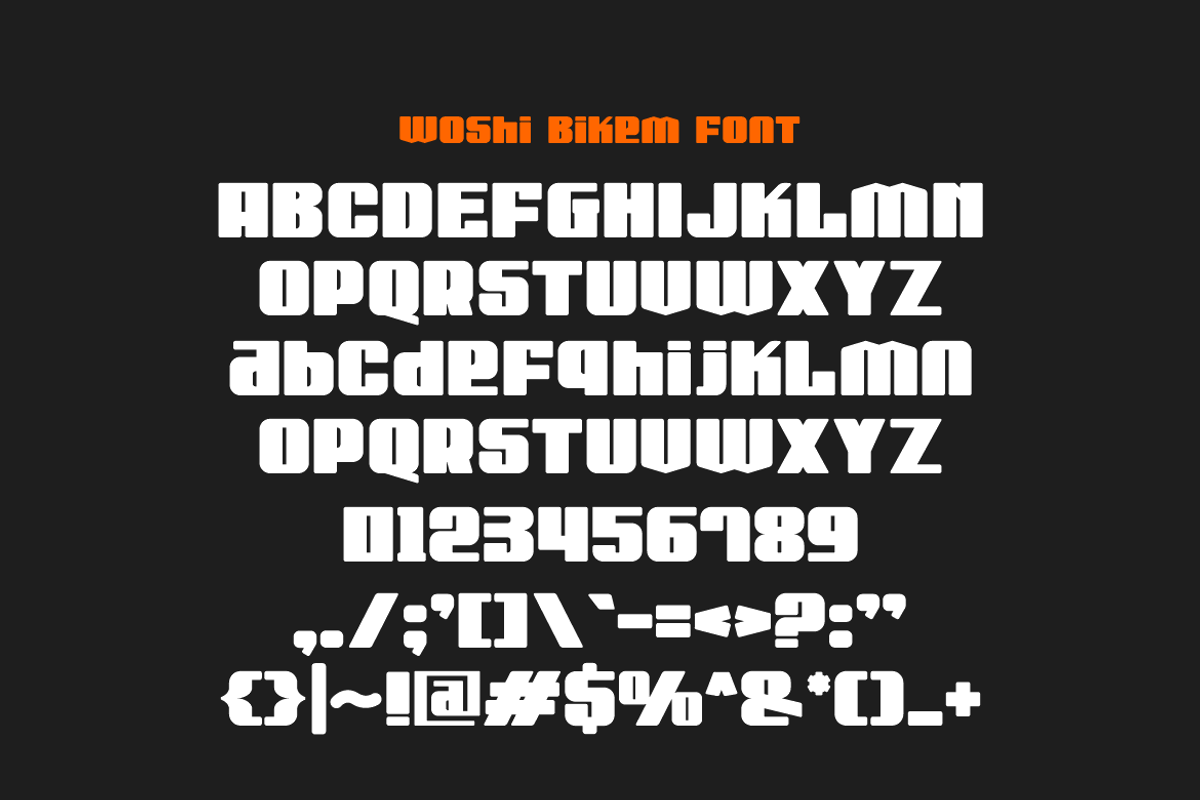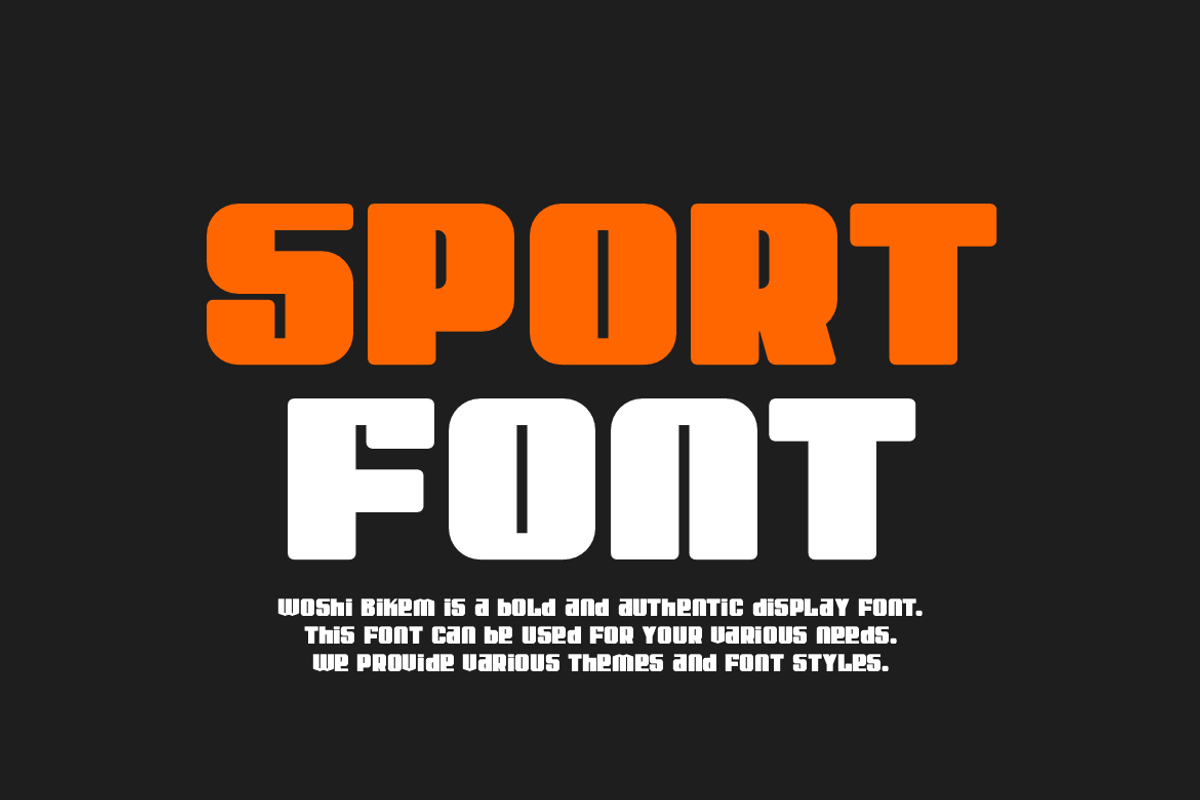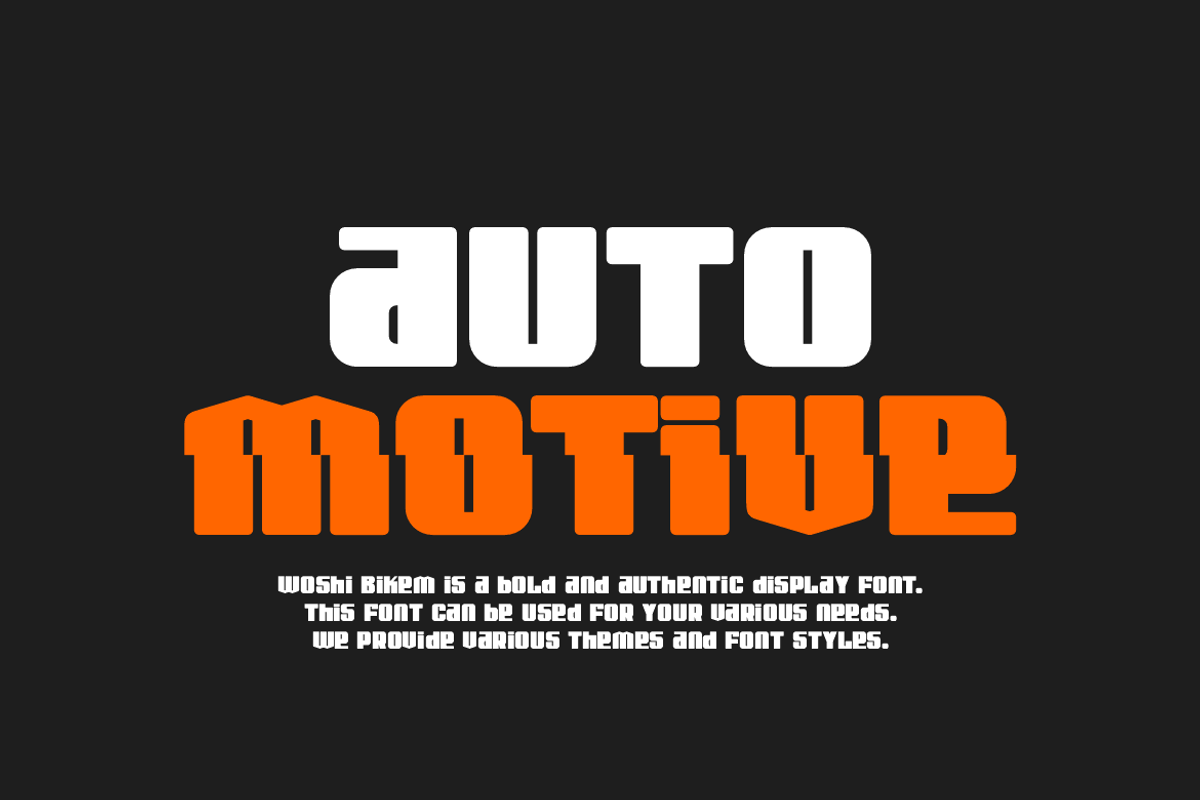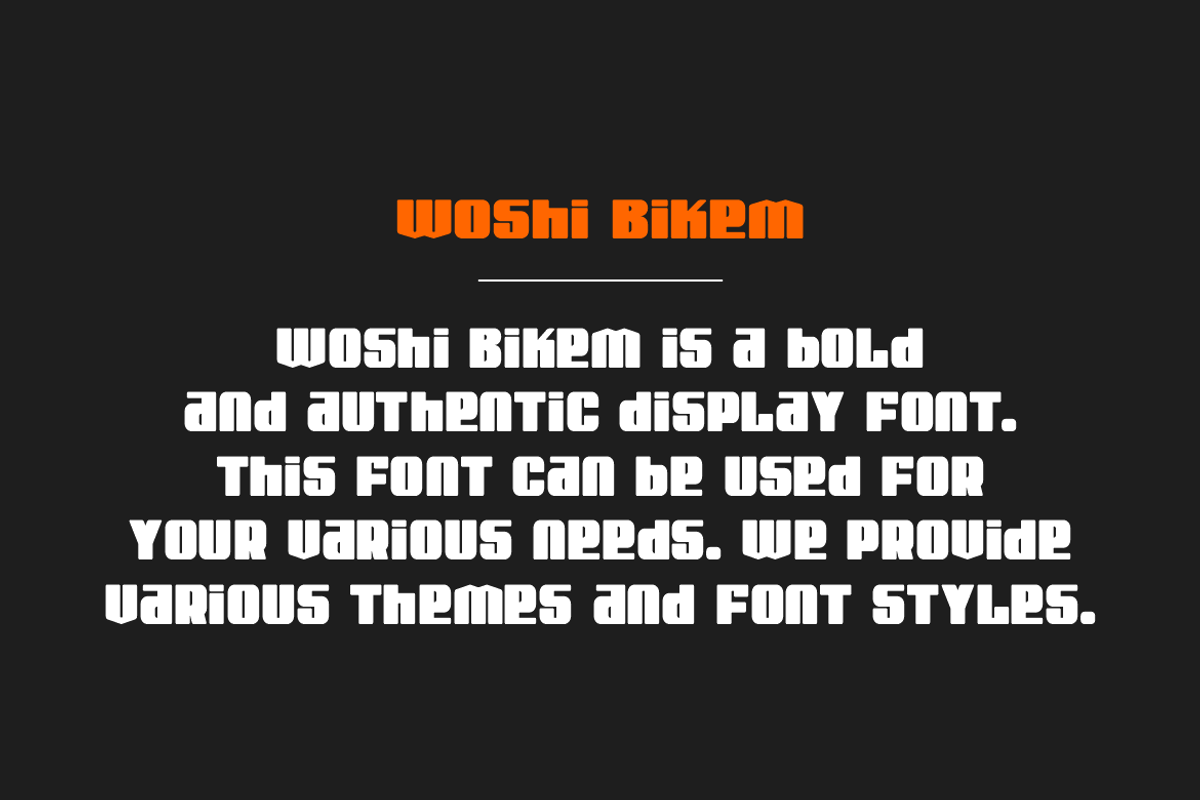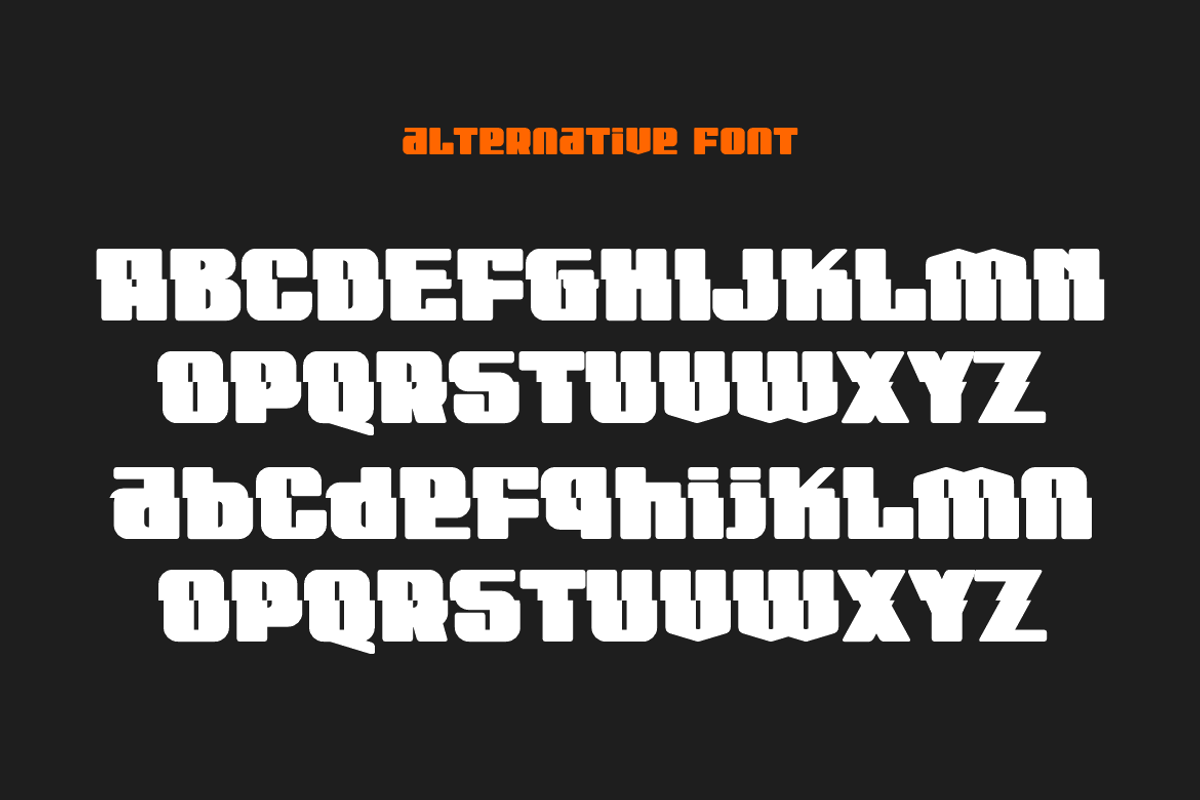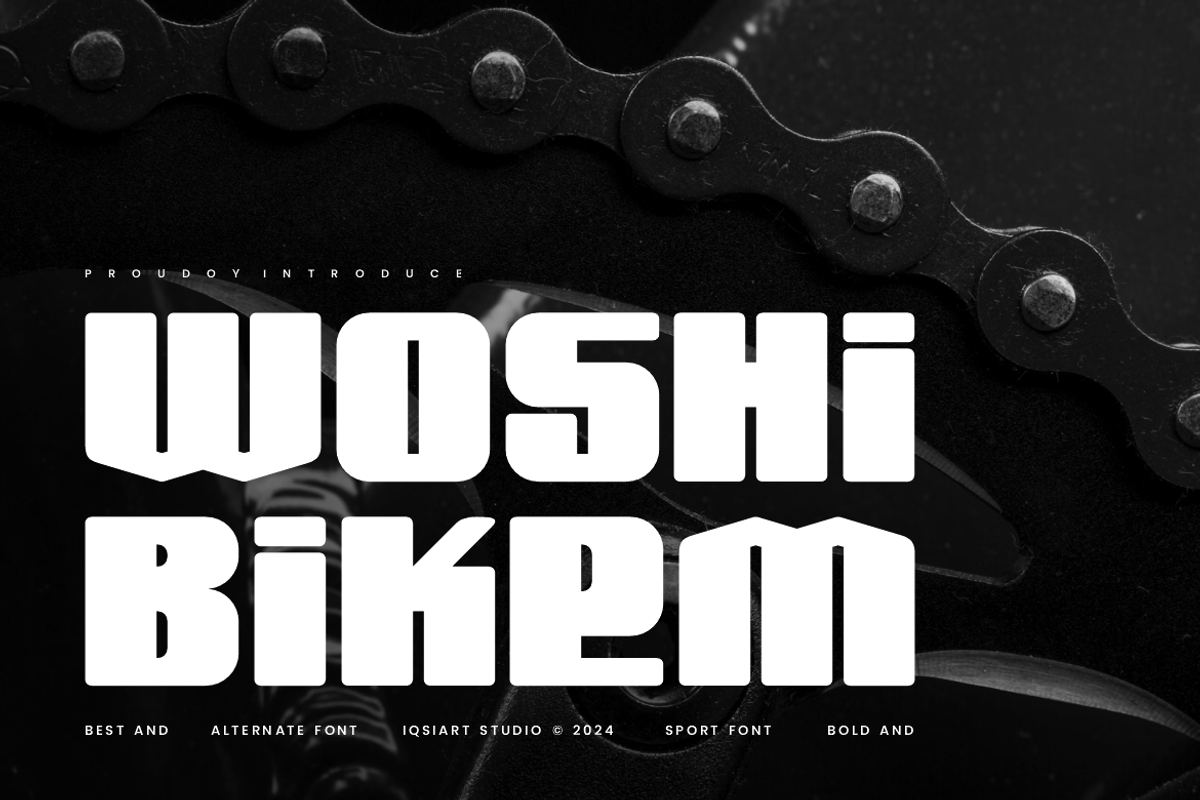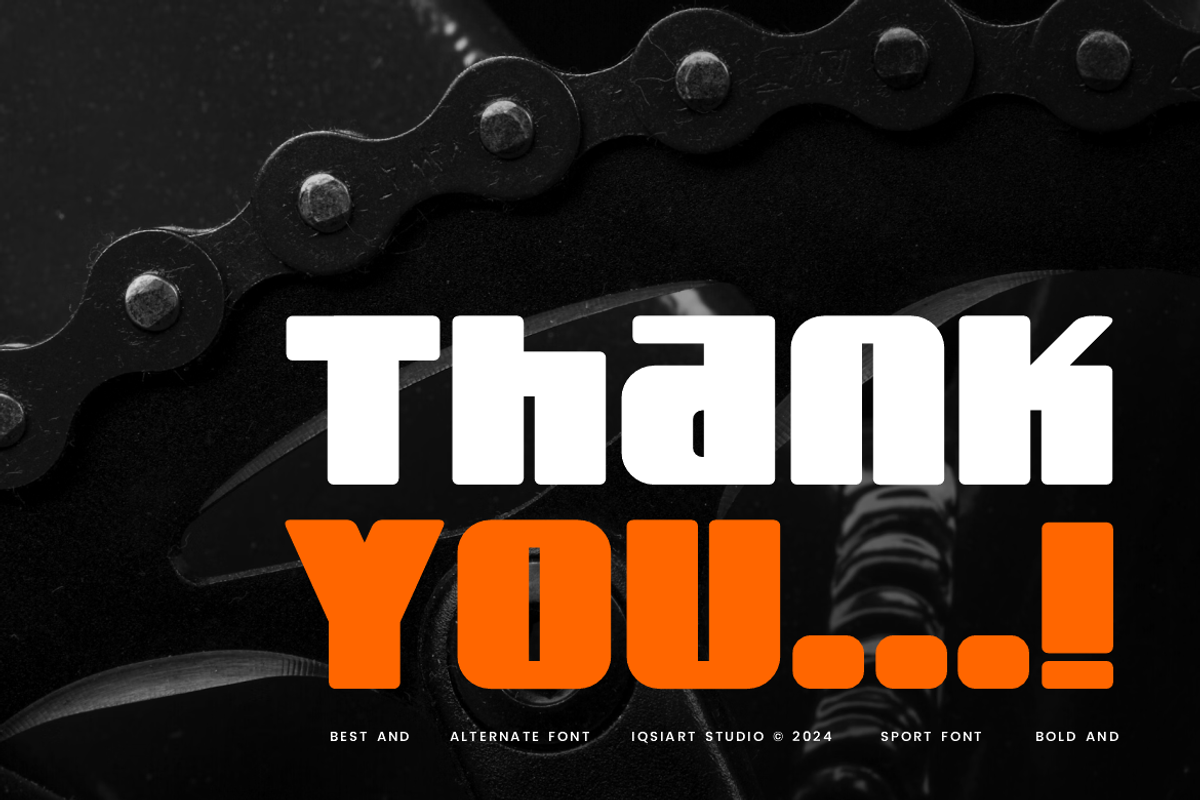
Woshi Bikem - Sport Bold Font
Woshi Bikem Font is a best and authentic display font. This font can be used for your various needs. We provide various themes and font styles. visit our profile to get a wide variety of themes and different font styles you need.